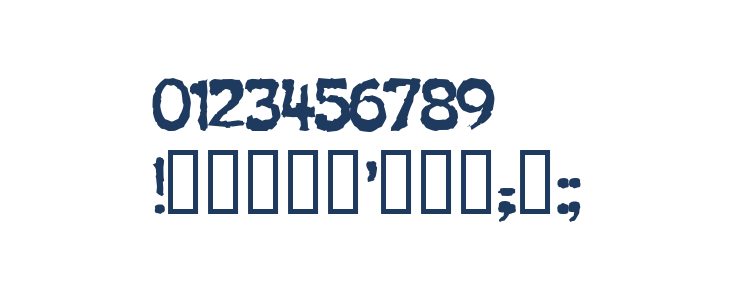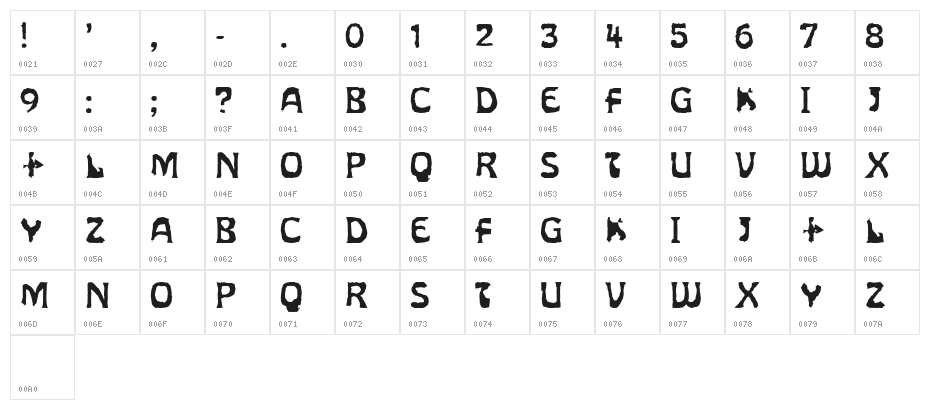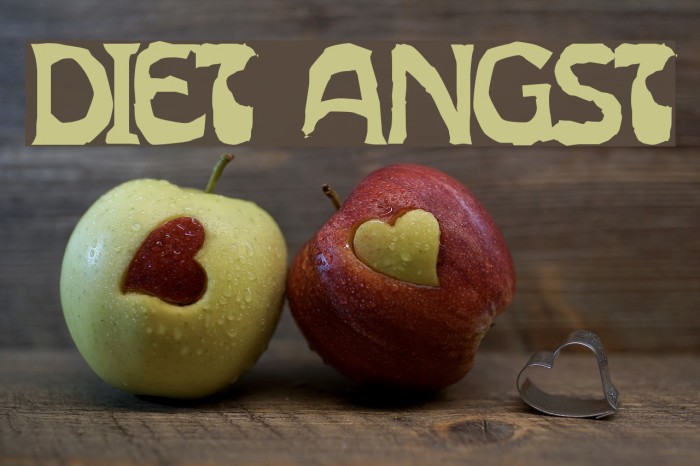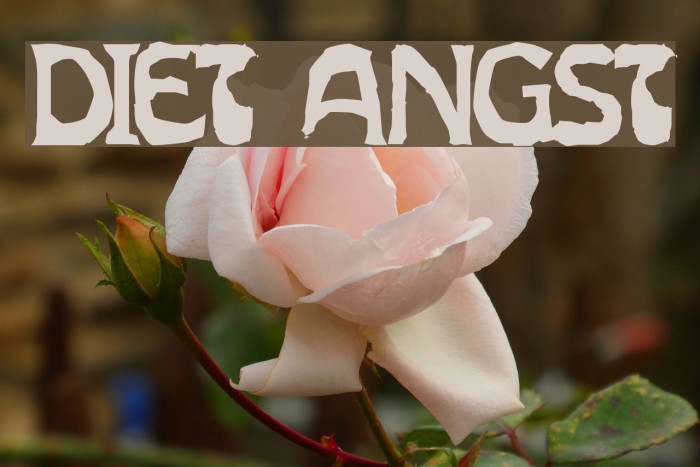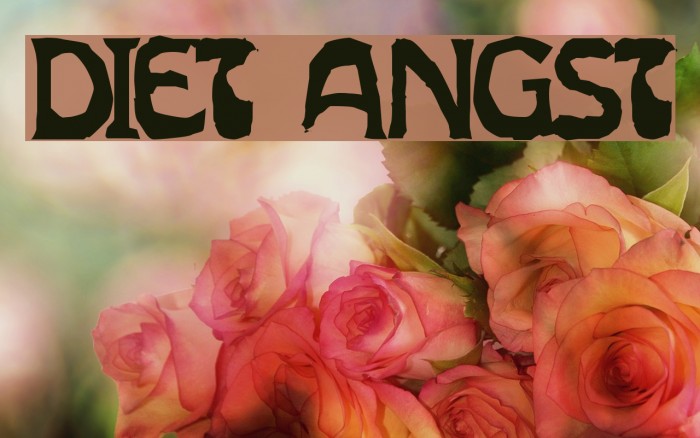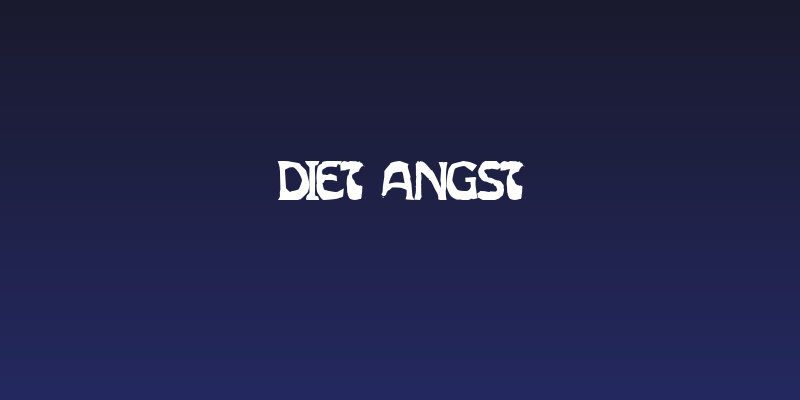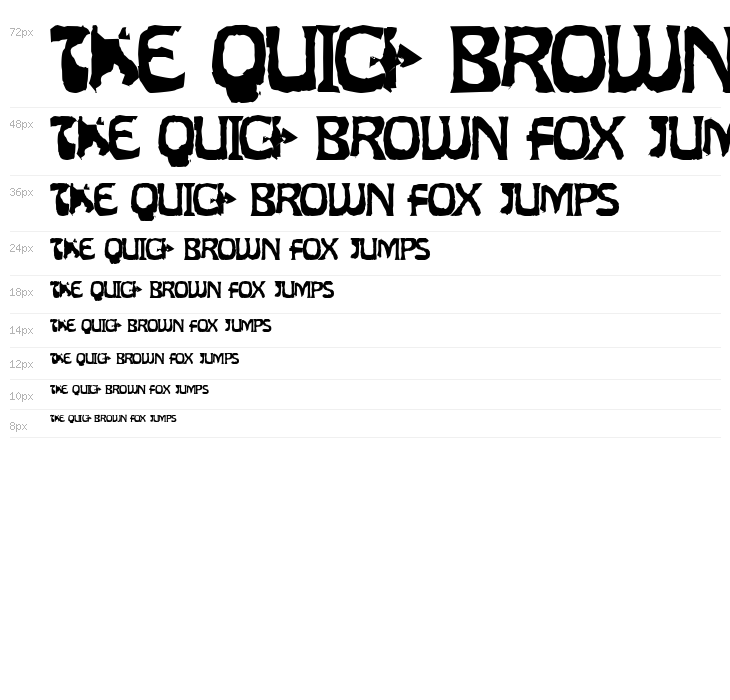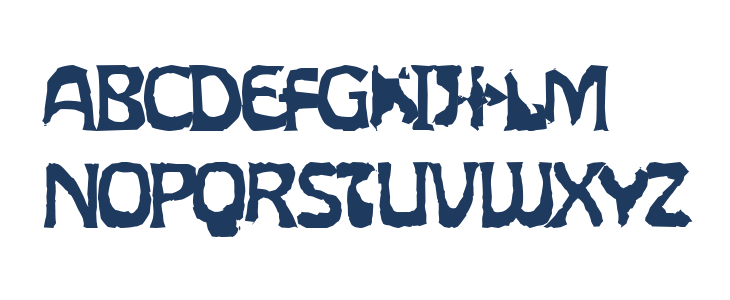
Diet Angst Font
Diet Angst Description
This font exhibits a bold and distressed appearance, characterized by its rough, jagged edges and uneven strokes. The letters have a hand-drawn quality, giving them a raw and edgy feel. The uppercase and lowercase characters maintain a consistent style, with a slightly chaotic yet artistic flair. The numbers and special characters follow the same rugged design, making the font suitable for projects that require a dramatic and impactful look. Its unique style is reminiscent of graffiti or street art, making it stand out in any design.
| Proposed Projects | Ideal for album covers, posters, street art designs, and edgy branding projects. |